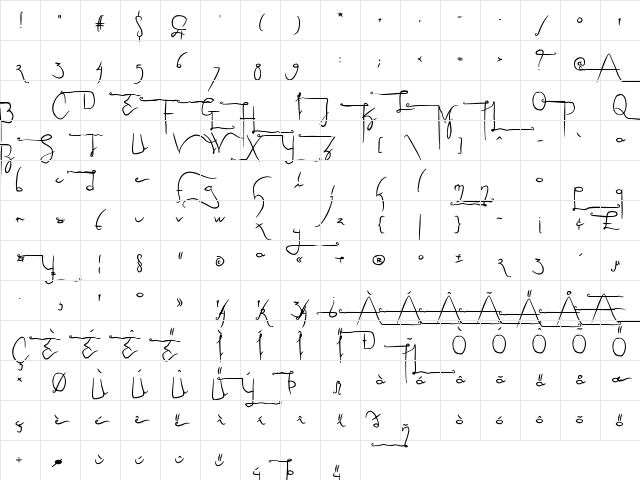
Complete Sculptors Hand Alternatives glyph index. Displaying only characters natively supported by Sculptors Hand Alternatives font.
Sculptors Hand flows with the natural rhythm of handwritten lettering, making it ideal for designs that call for warmth and personal expression.
Font Pairing: Combine Sculptors Hand with a simple geometric sans for maximum contrast - the tension between flowing curves and clean structure is a classic typographic pairing.
Pro Tip: Use Sculptors Hand for short runs of text - names, titles, or taglines. Extended body copy in script faces tires the eye quickly.